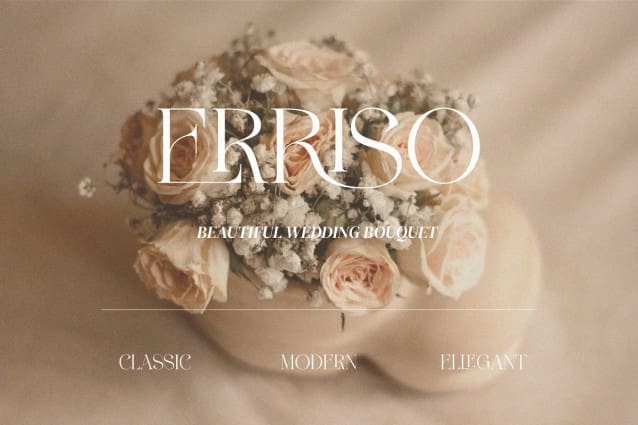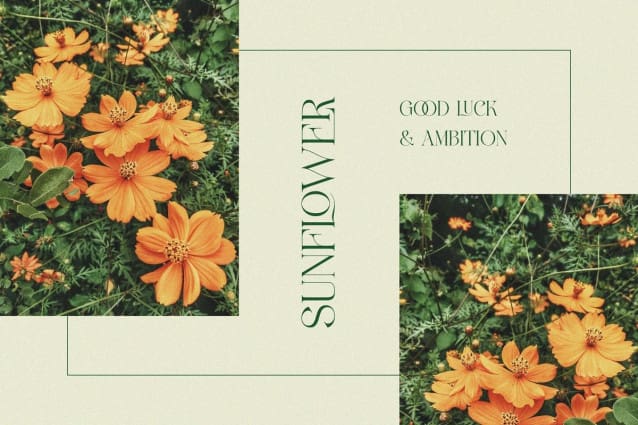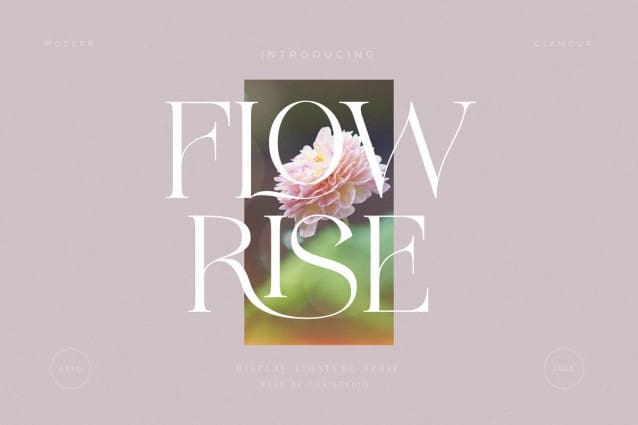
Flowrise Font
Flowrise Font is a new condensate font with graceful curves resulting in an elegant style and luxurious appearance. This unique font is perfect for creating beautiful logotypes, stunning magazine designs, titles, branding, and more. This font can be your solution in completing projects equipped with various alternative collections and binders.